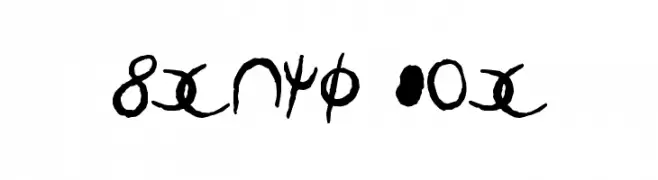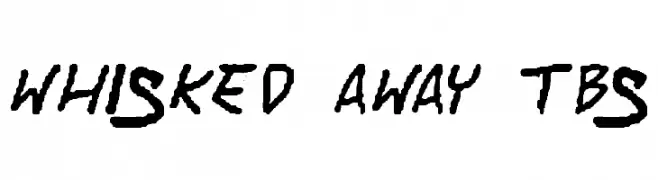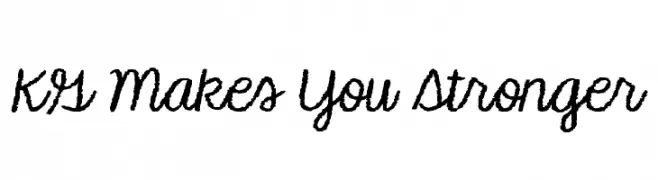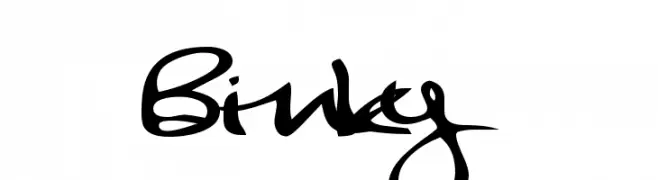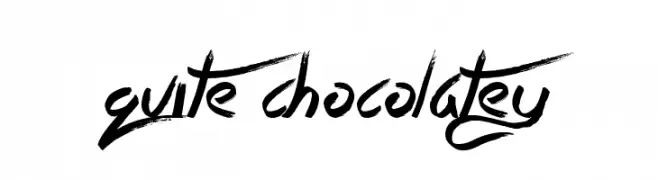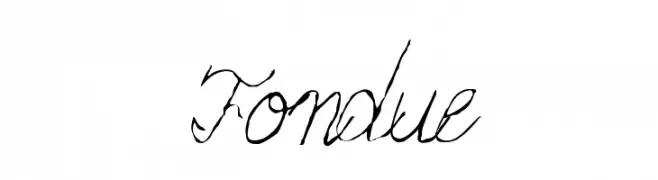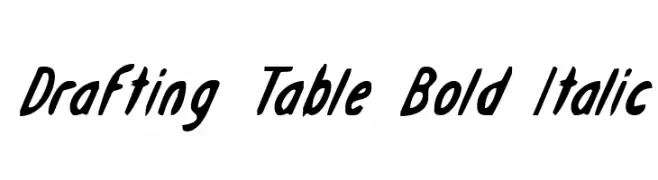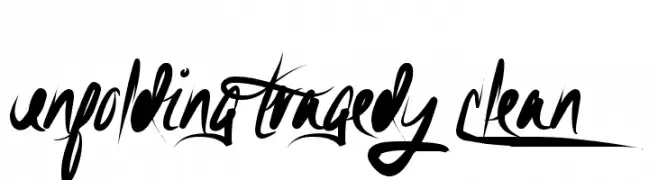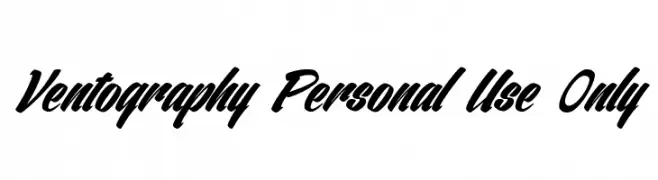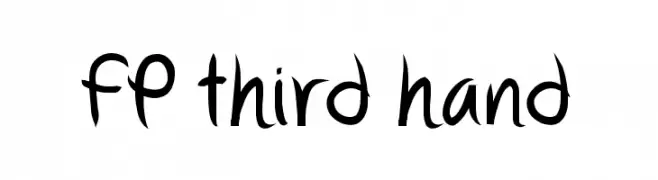
An elegant, cursive font with a fluid, handwritten style.
A decorative and abstract font with fluid, calligraphic-inspired letterforms.
A playful and dynamic script font with fluid, slanted letterforms.
A dynamic and fluid script font with elegant, flowing letterforms.
A playful, handwritten font with smooth, fluid strokes and a casual feel.
A playful, handwritten script font with elongated, fluid strokes.
A lively, handwritten font with fluid, expressive strokes.
A lively and playful handwritten font with fluid, connected strokes.
A bold, expressive handwritten font with fluid, interconnected strokes.
A dynamic and fluid script font with elegant, flowing letterforms.
A dynamic, brush-style font with expressive strokes and fluid motion.
A bold, italicized font with dynamic and fluid strokes.
An expressive and dynamic script font with fluid, sweeping strokes.
A lively handwritten font with fluid strokes and dynamic character.
A dynamic, expressive handwritten font with fluid, interconnected strokes.
A whimsical, artistic font with fluid, curvy lines and playful forms.
A casual, handwritten-style font with smooth, fluid strokes and a personal touch.
A dynamic, cursive script font with fluid, interconnected strokes.
A bold, expressive handwritten font with fluid strokes and a playful style.
A playful, handwritten font with fluid strokes and a casual style.